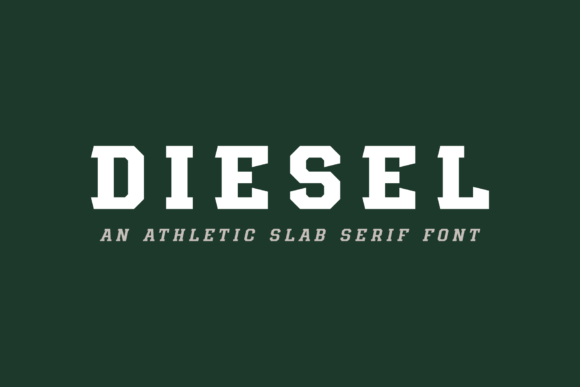
Diesel Font: The Ultimate Typographic Boost for Your Creative Projects
In the world of typography, fonts play a crucial role in conveying messages, expressing emotions, and capturing attention. With the vast array of fonts available, it can be challenging to find the perfect one that stands out from the rest. However, if you’re looking for a font that exudes strength, sturdiness, and dynamism, look no further than the Diesel font. In this article, we’ll delve into the world of Diesel font, exploring its unique features, characteristics, and applications.
What is Diesel Font?
Diesel font is a bold slab serif font inspired by sports typography. Its unique and angled characters make it a strong, sturdy, and dynamic font perfect for any application that needs a typographic boost. The font’s design is reminiscent of sports jerseys, stadium signage, and other high-energy environments where bold typography is essential.
Key Features of Diesel Font
- Bold and Slab Serif Design: Diesel font features a bold and slab serif design that commands attention and exudes confidence.
- Unique and Angled Characters: The font’s characters are uniquely angled, giving it a dynamic and energetic feel.
- Sports Typography Inspiration: Diesel font draws inspiration from sports typography, making it perfect for sports-related branding, advertising, and marketing materials.
- High Versatility: The font is suitable for a wide range of applications, from headlines and titles to body text and captions.
Applications of Diesel Font
Diesel font is an incredibly versatile font that can be used in various applications, including:
1. Sports Branding and Marketing
Diesel font is perfect for sports teams, leagues, and organizations looking for a bold and dynamic font to represent their brand. The font’s sports typography inspiration makes it an excellent choice for jerseys, stadium signage, and marketing materials.
2. Advertising and Posters
The font’s bold and attention-grabbing design makes it ideal for advertising and poster design. Use Diesel font to create eye-catching headlines and titles that capture the audience’s attention.
3. Packaging and Label Design
Diesel font can add a touch of energy and dynamism to packaging and label design. Use the font to create bold and eye-catching labels that stand out on store shelves.
4. Digital Media and Web Design
The font’s clean and legible design makes it suitable for digital media and web design. Use Diesel font to create bold and attention-grabbing headlines, titles, and captions for your website or social media channels.
Benefits of Using Diesel Font
Using Diesel font in your creative projects offers several benefits, including:
1. Attention-Grabbing Design
Diesel font’s bold and dynamic design grabs attention and makes your message stand out.
2. Increased Legibility
The font’s clean and slab serif design ensures excellent legibility, even at small sizes.
3. Versatility
Diesel font is suitable for a wide range of applications, from print to digital media.
4. Unique and Memorable
The font’s unique and angled characters make it memorable and distinctive, helping your brand or message stand out.
How to Use Diesel Font Effectively
To get the most out of Diesel font, follow these tips:
1. Use it for Headlines and Titles
Diesel font is perfect for headlines and titles, where its bold and attention-grabbing design can shine.
2. Pair it with Other Fonts
Pair Diesel font with other fonts to create visual interest and contrast. Use a clean and sans-serif font for body text to create a harmonious balance.
3. Experiment with Colors and Textures
Diesel font looks great in a variety of colors and textures. Experiment with different options to find the perfect combination for your project.
4. Use it Consistently
Use Diesel font consistently across your branding, advertising, and marketing materials to create a cohesive and recognizable visual identity.
In conclusion, Diesel font is a powerful and dynamic font that can add a typographic boost to any creative project. Its unique and angled characters, bold and slab serif design, and sports typography inspiration make it perfect for a wide range of applications. By understanding the font’s features, applications, and benefits, you can harness its power to create attention-grabbing and memorable designs.